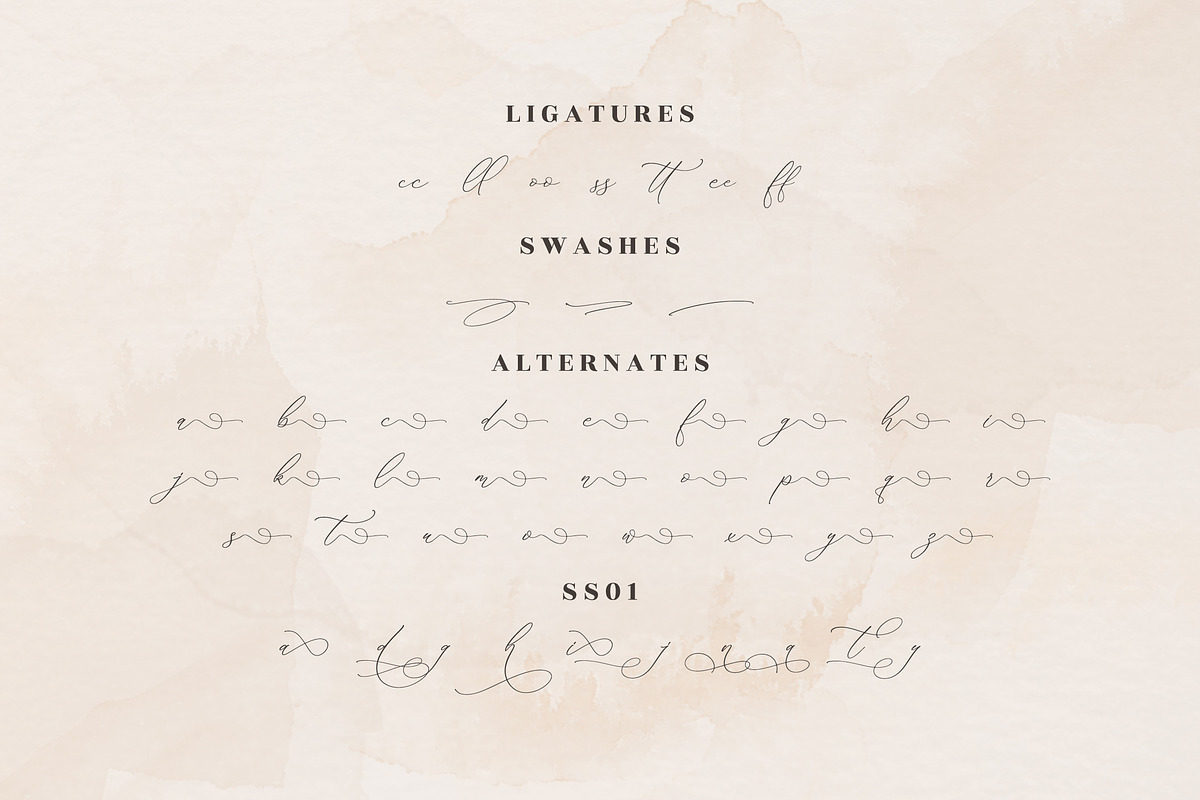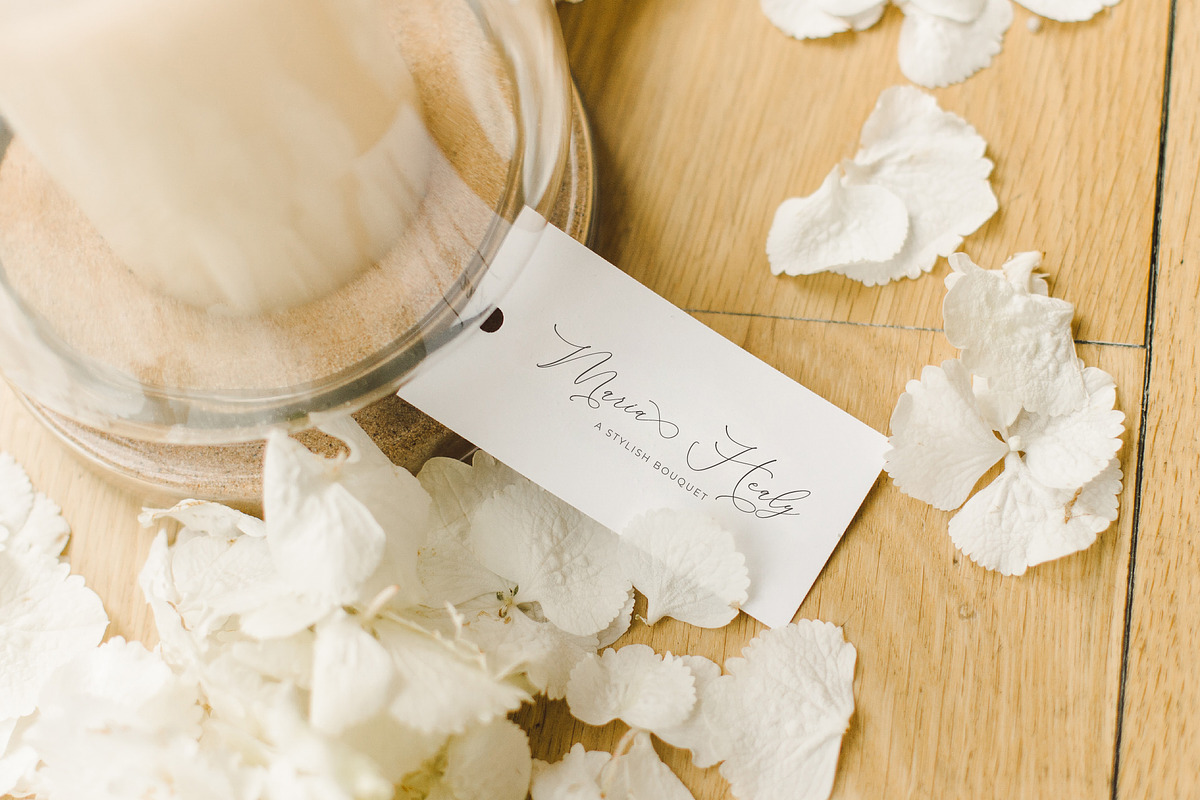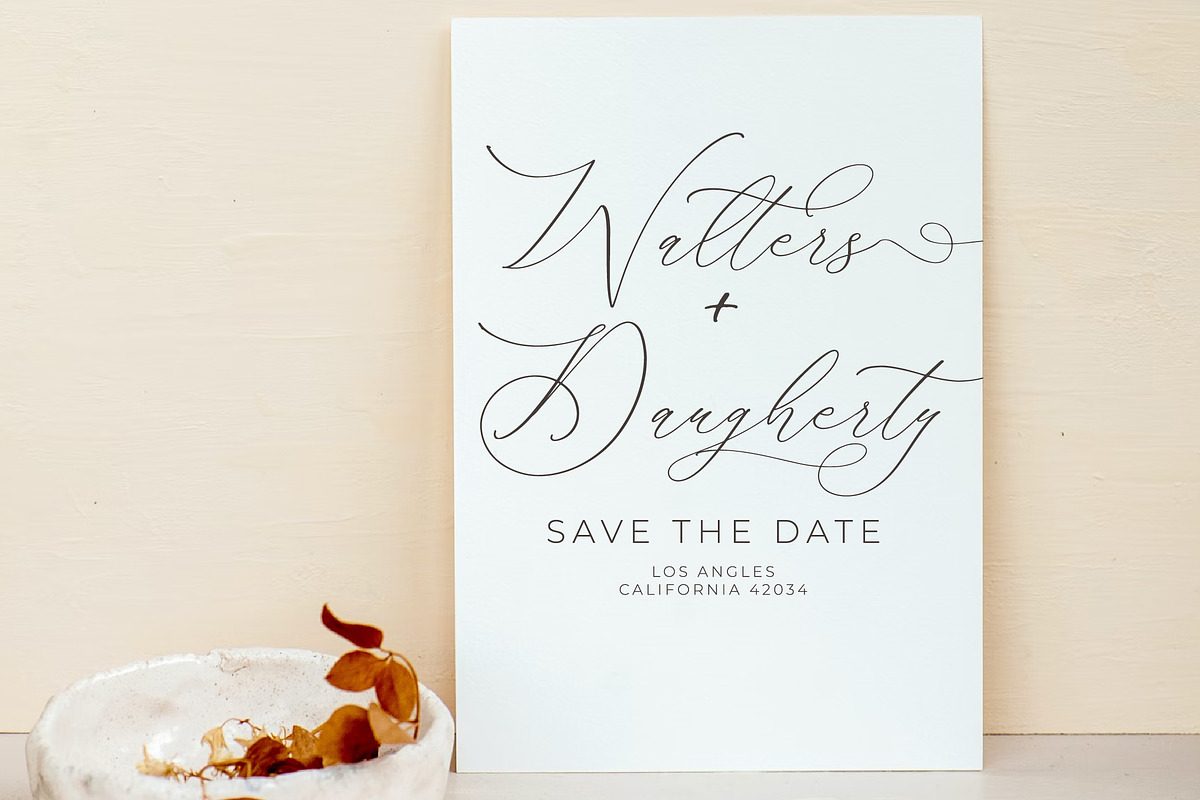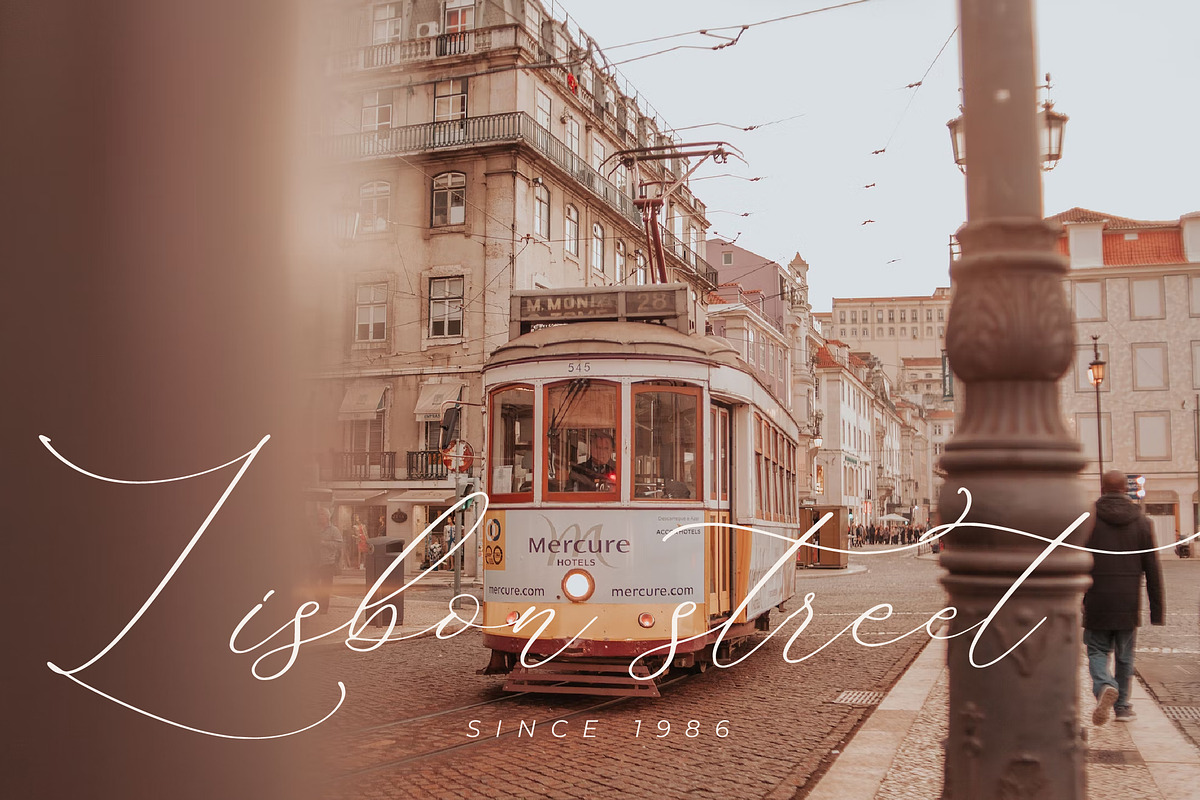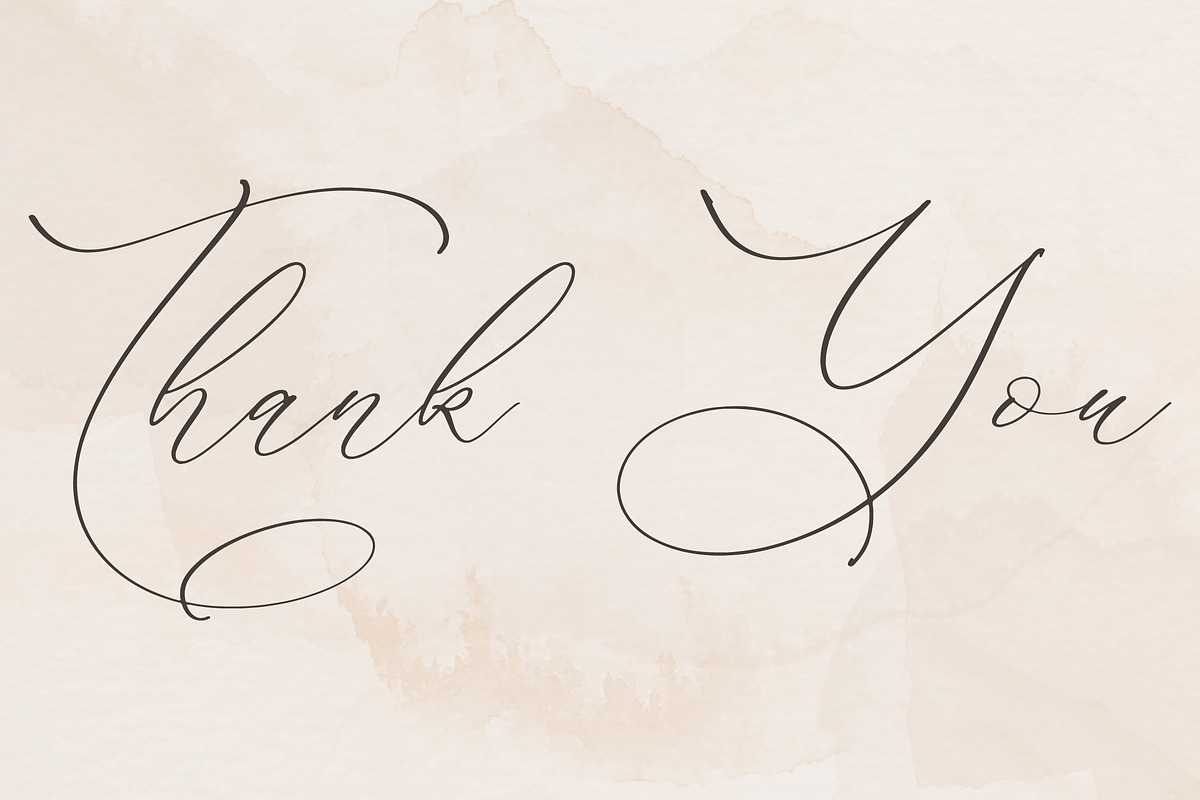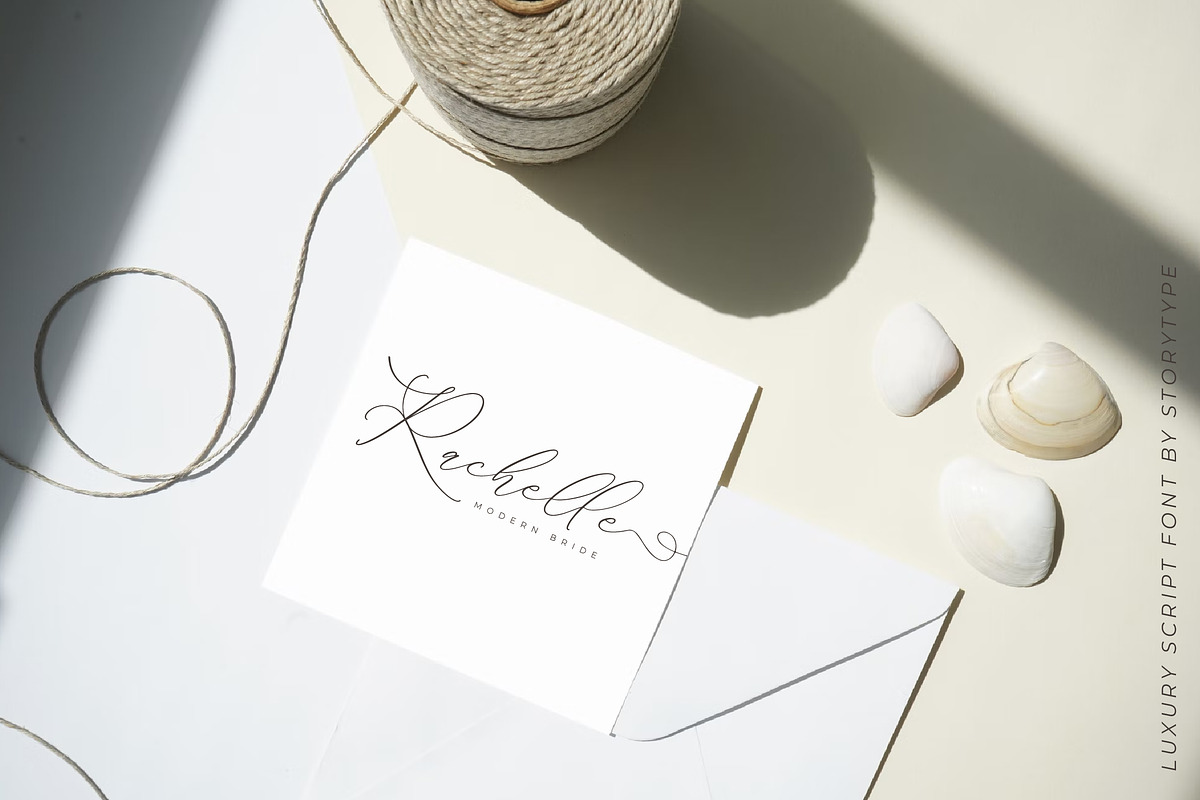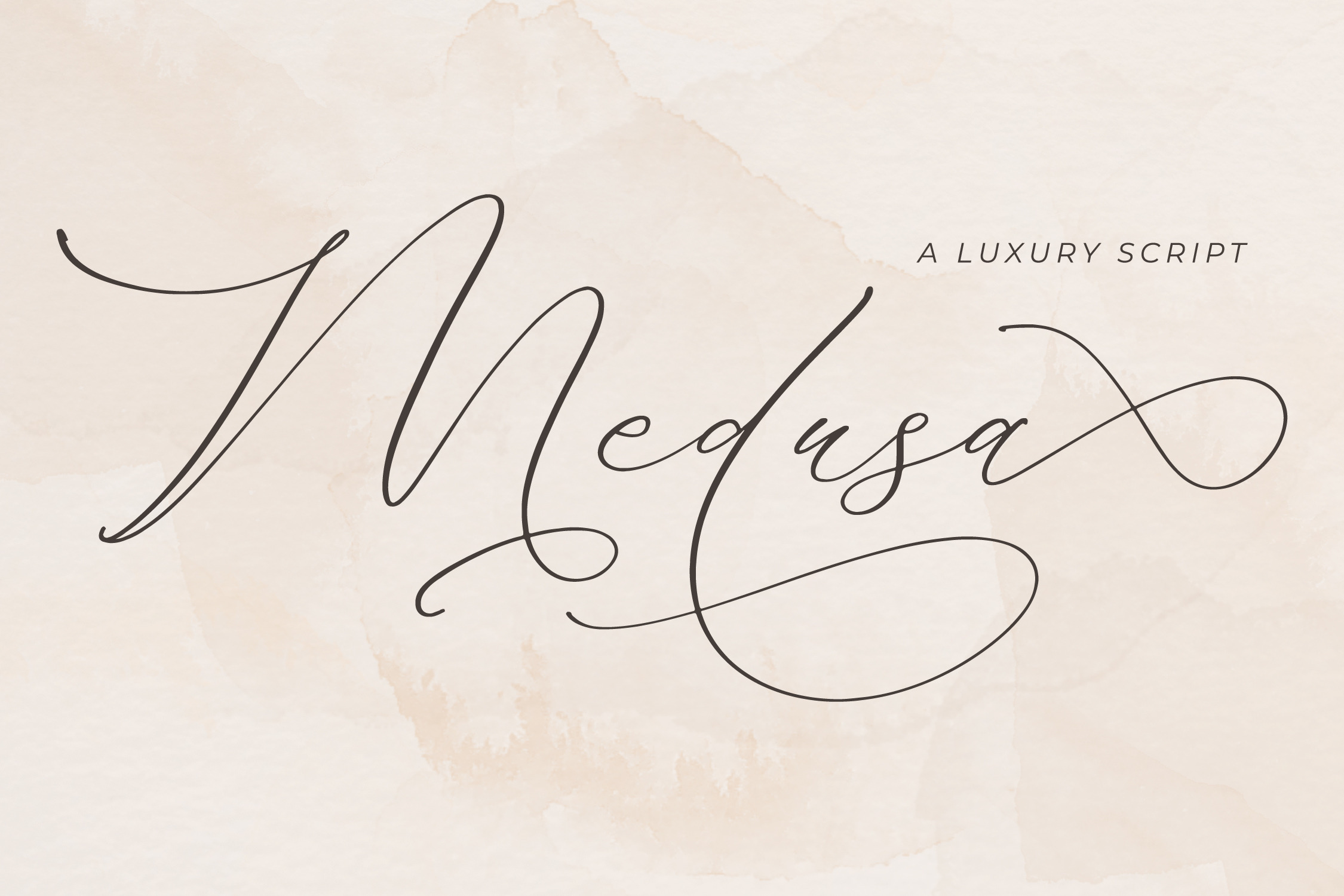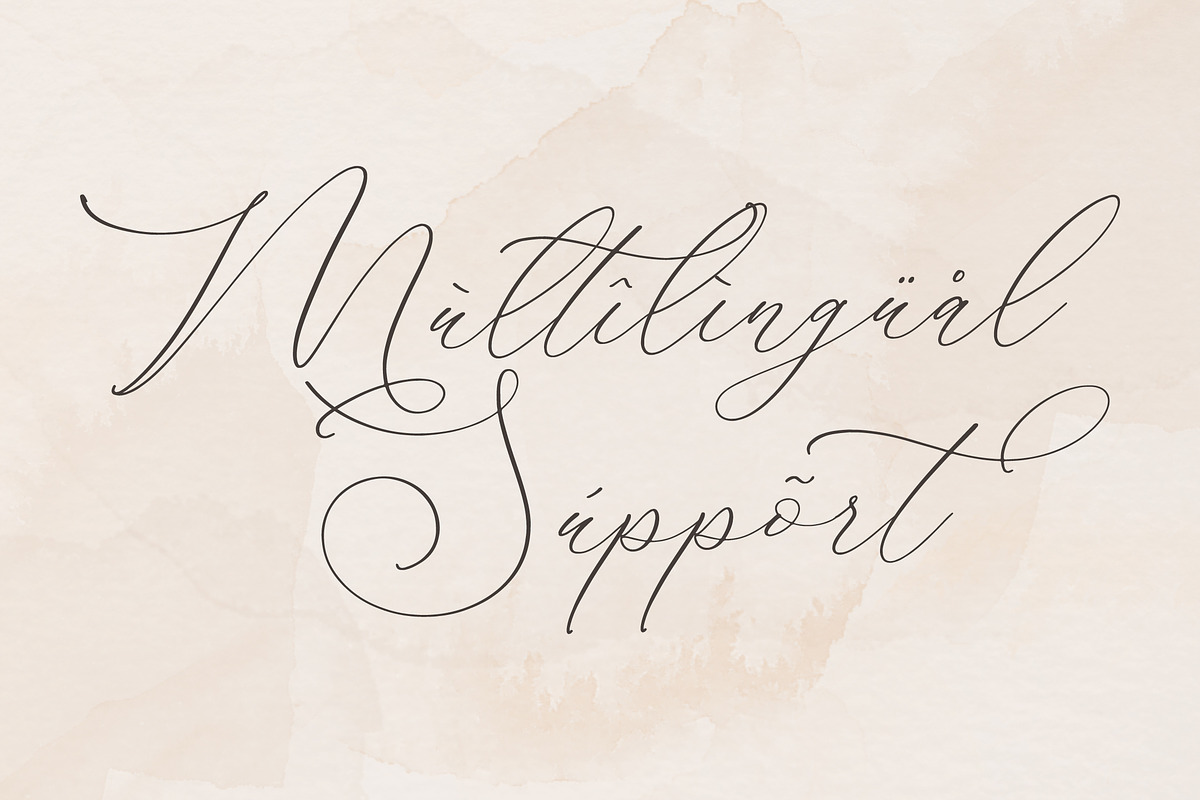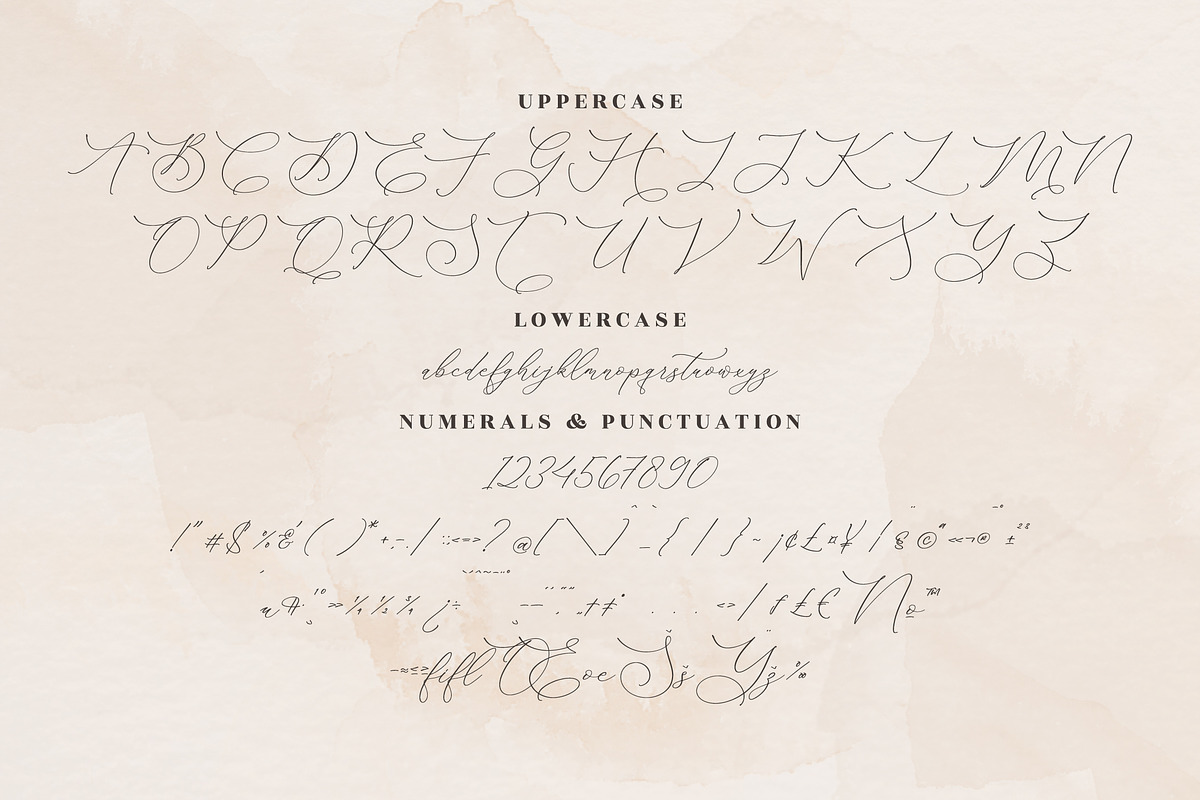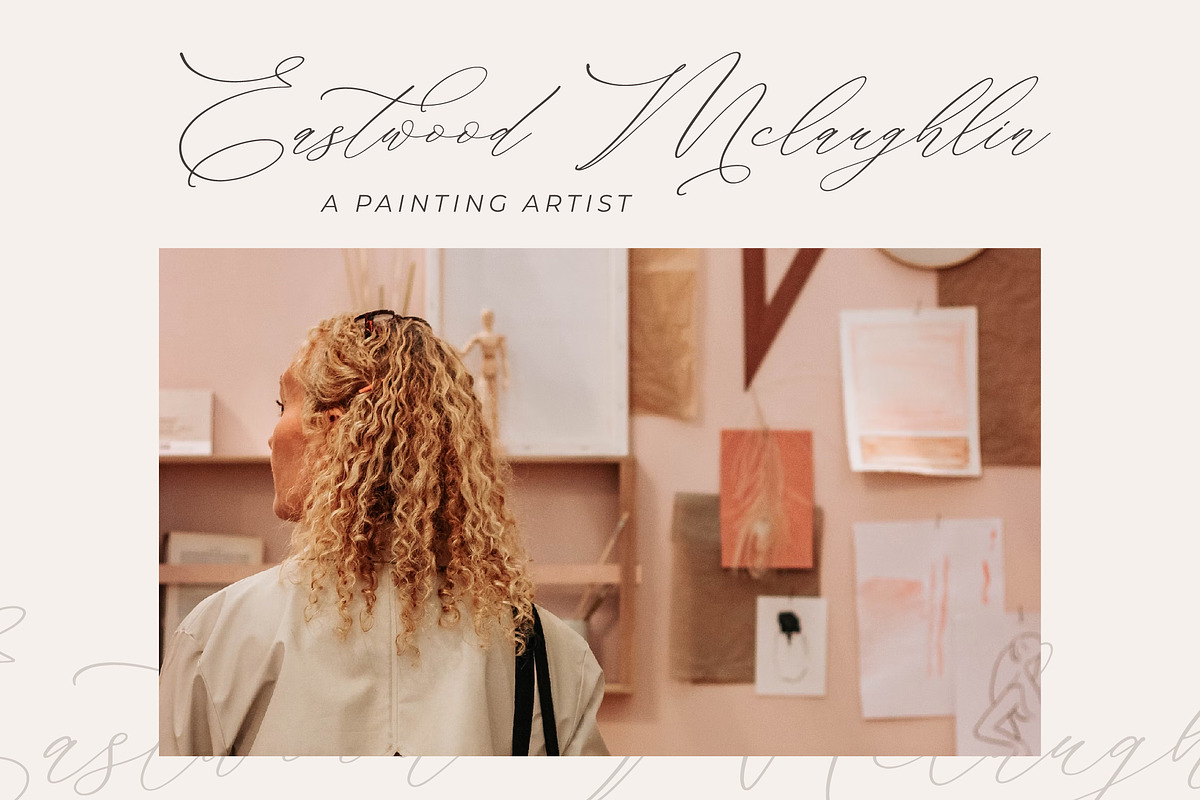
Medusa Luxury Script Font
Proudly present Medusa Luxury Script Font , created by Storytype, A luxury script that has own unique style & modern look. This typeface is perfect for an elegant & luxury logo, book or movie title design, fashion brand, magazine, clothes, lettering, quotes, and so much more.